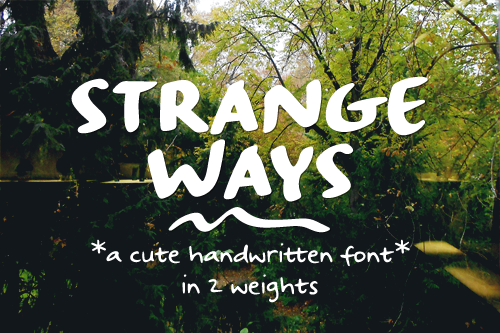
"Strangeways" is a cute handwritten font, with: - A-Z, a-z, 0-9, accents, punctuation and symbols - Ligatures Try it out for free (for private use) with this sample version! For the full commercial version, please visit one of these links: https://www.anasfonts.com/ https://creativemarket.com/justlikethistrain?u=justlikethistrain http://www.revolge.com/shop/anas-fonts/ https://thehungryjpeg.com/anas-fonts/ https://www.fontspring.com/foundry/anas-fonts https://buyafont.com/designer/anas-fonts |